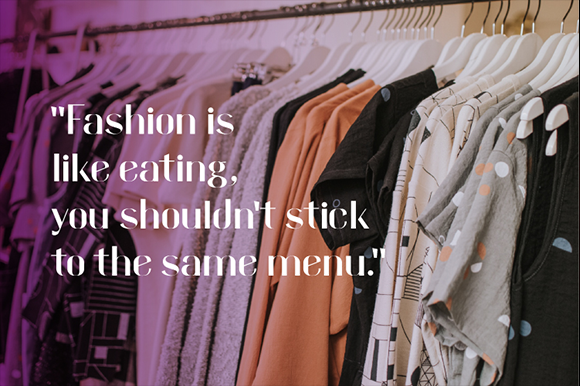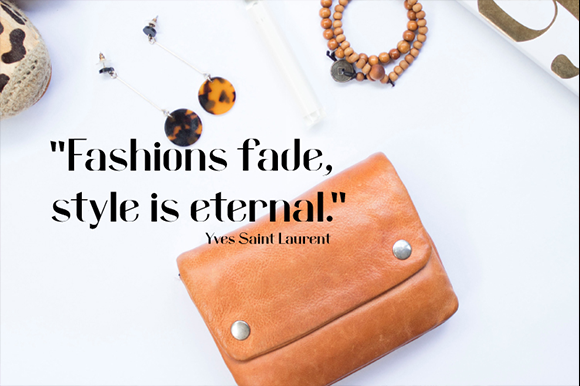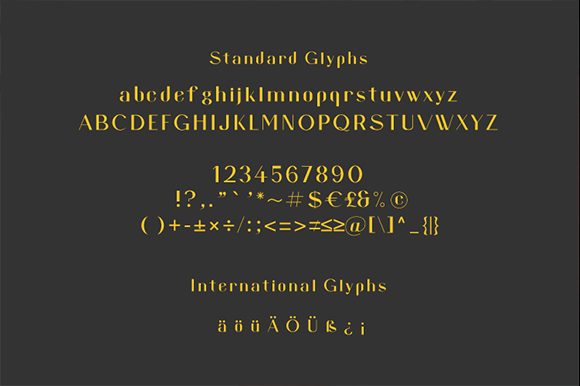
The Bainai Font: A Bold and Fun Sans Serif to Elevate Your Designs
I’ll never forget the time I was working on a project for a client who wanted a bold, eye-catching font to match their brand’s playful personality. I scoured the internet for hours, trying out font after font, but nothing seemed quite right. That was until I stumbled upon the Bainai font. Its unique style and sans serif charm instantly caught my attention, and I knew I had found the perfect fit. In this article, I’ll share my experience with the Bainai font, its features, and how to make the most of it in your designs.
My Honest Review of Bainai Font
- ✨ Unique and bold style that adds a fun twist to any design
- ✨ Extensive character set, including glyphs and stylistic alternates
- ✅ Works well for both digital and print designs
- 🤔 Limited availability of language support (but it’s still a great option for English-based designs)
- ⚠️ May not work well for very formal or traditional designs (it’s a bold, playful font, after all!)
One of the best things about the Bainai font is its extensive OpenType features and glyphs. With Bainai, you can:
- Access stylistic alternates to create unique text effects
- Use glyphs to add decorative elements to your design
- Experiment with different font styles, such as bold and italic
The Story Behind Bainai Font
The Bainai font was designed with one goal in mind: to create a bold, fun, and unique sans serif font that would add a twist to any design. Inspired by modern design trends and a passion for creativity, the Bainai font is perfect for designers, crafters, and creative hobbyists looking to elevate their designs.
| Font Name | Bainai Font |
| Author | dinnergraph |
| What is the Bainai font best used for? | The Bainai font is perfect for creative projects, such as posters, flyers, and social media graphics. It’s also great for branding and packaging designs. |
| Is the Bainai font suitable for body text? | While the Bainai font is highly legible, it’s best used for headlines and titles. For body text, you may want to choose a more traditional font. |
| Is the Bainai font available in different languages? | The Bainai font has limited language support. If you need to use it for a specific language, be sure to check the character set and glyphs to ensure it meets your needs. |